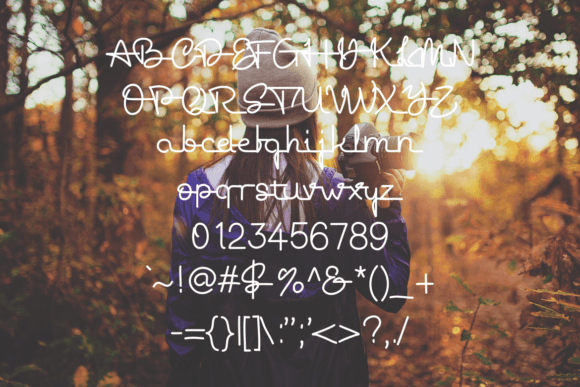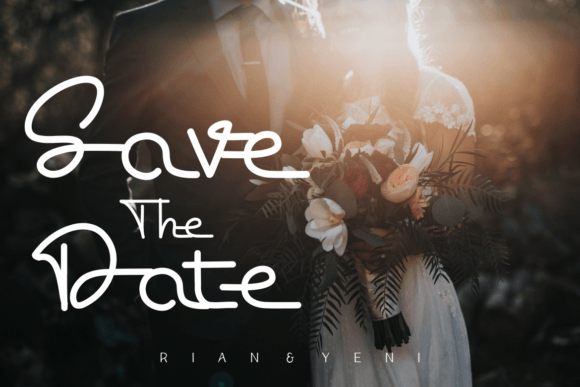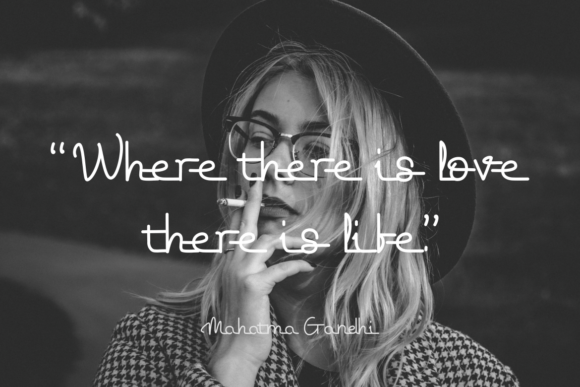
Introduction to Bulgary Signature Font
Bulgary Signature is a modern and cool handwritten script font.
Add it to your crafty ideas and enjoy the results .
Key Features of Bulgary Signature Font